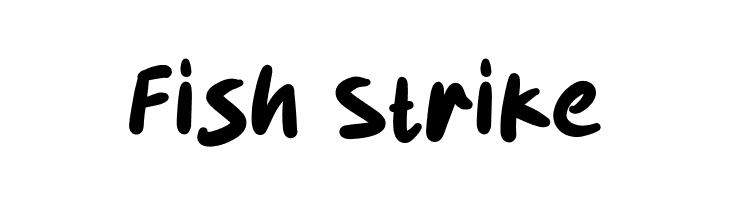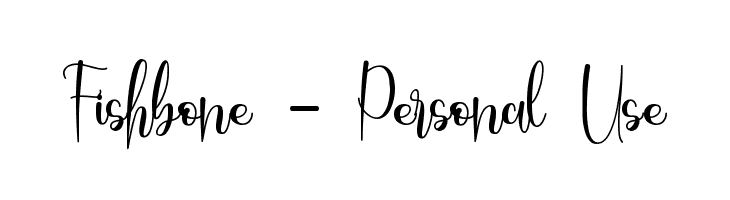
A decorative font with a fish scale pattern, offering a bold and geometric style.
A playful, bold font with a retro halftone pattern and rounded characters.
A bold, handwritten font with a playful and energetic style.
A playful, hand-drawn font with tall, narrow characters and consistent stroke thickness.
A bold, playful handwritten font with rounded strokes and a casual style.
An elegant and flowing script font with ornate uppercase and smooth lowercase letters.
A playful, handwritten font with a casual and whimsical style.
A whimsical and elegant script font with playful loops and flourishes.
A bold, playful font with exaggerated curves and a whimsical style.